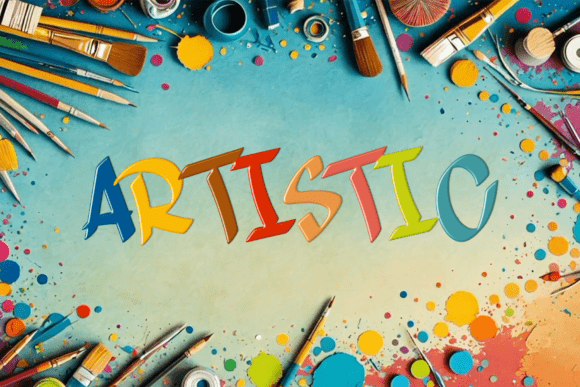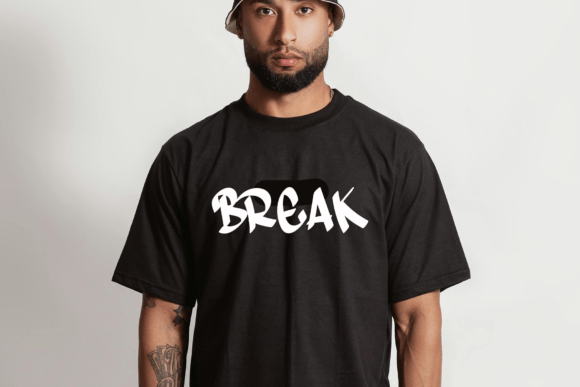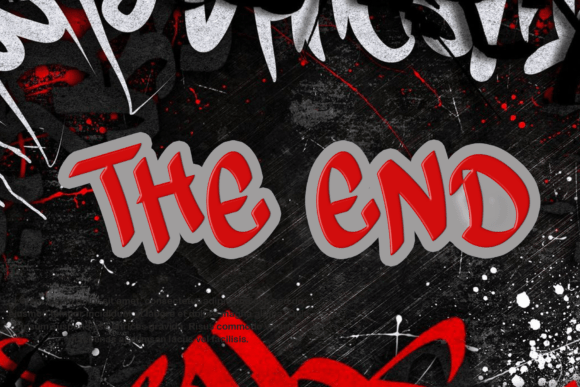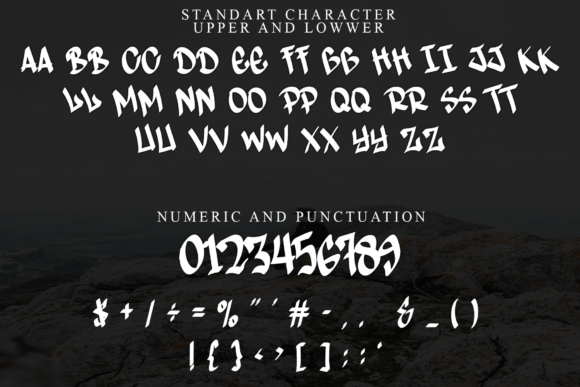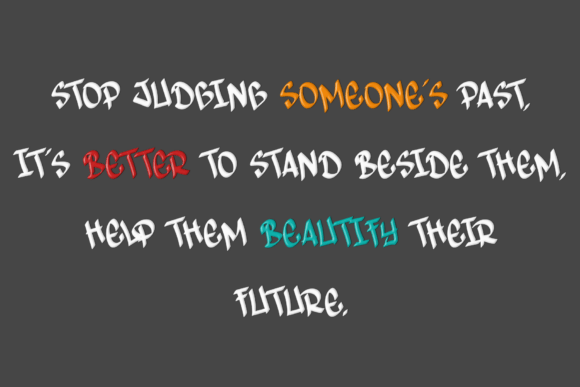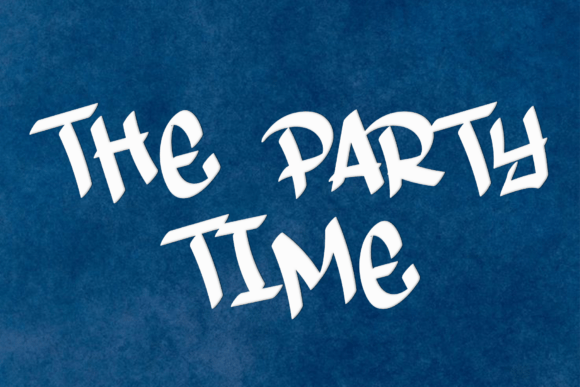
Discover the Charm of Cooling Period Font: Elevate Your Designs with a Unique Touch
In the world of typography, fonts play a crucial role in conveying messages, evoking emotions, and adding personality to designs. Among the myriad of fonts available, the Cooling Period Font stands out with its soft, unique touch and distinctive strokes. This beautiful and eye-catching font is designed to make your creative projects shine, offering a versatile and meaningful addition to any design endeavor.
The Unique Character of Cooling Period Font
What sets Cooling Period Font apart is its special character, which is both aesthetically pleasing and highly functional. The font’s soft and unique touch gives it a distinctive feel, making it perfect for a wide range of applications, from design projects and crafts to other creative works. Its versatility is further enhanced by the variety of characters it offers, allowing designers and crafters to experiment with different styles and expressions.
Perfect for Design Projects and Creative Works
Cooling Period Font is an ideal choice for designers and crafters looking to add a personal touch to their work. Whether you’re working on a logo, branding materials, posters, or digital content, this font is sure to enhance your designs and make them more appealing to your audience. Its natural font style and unique character make it a great fit for a wide range of products, including:
- Digital content, such as social media graphics and blog posts
- Crafts, such as handmade cards and invitations
Why Choose Cooling Period Font?
So, why should you choose Cooling Period Font for your design projects? Here are just a few reasons:
- Unique and eye-catching design: Cooling Period Font has a distinctive style that sets it apart from other fonts.
- Perfect for creative works: Cooling Period Font is ideal for design projects, crafts, and other creative works that require a personal touch.
- Natural and aesthetically pleasing: The font’s natural style and soft touch make it a great fit for a wide range of products and designs.
In conclusion, Cooling Period Font is a beautiful and eye-catching font that offers a unique touch to design projects, crafts, and other creative works. Its distinctive strokes, versatile character set, and compatibility with various applications make it an ideal choice for designers and crafters looking to elevate their designs. With Cooling Period Font, you can add a personal touch to your work, making it more appealing to your audience and standing out in a crowded design landscape.
Whether you’re a professional designer or a crafter looking for a unique font to enhance your work, Cooling Period Font is definitely worth considering. Its natural style, versatility, and eye-catching design make it a great addition to any design project, and its compatibility with various applications ensures that it can be used across different platforms and formats.